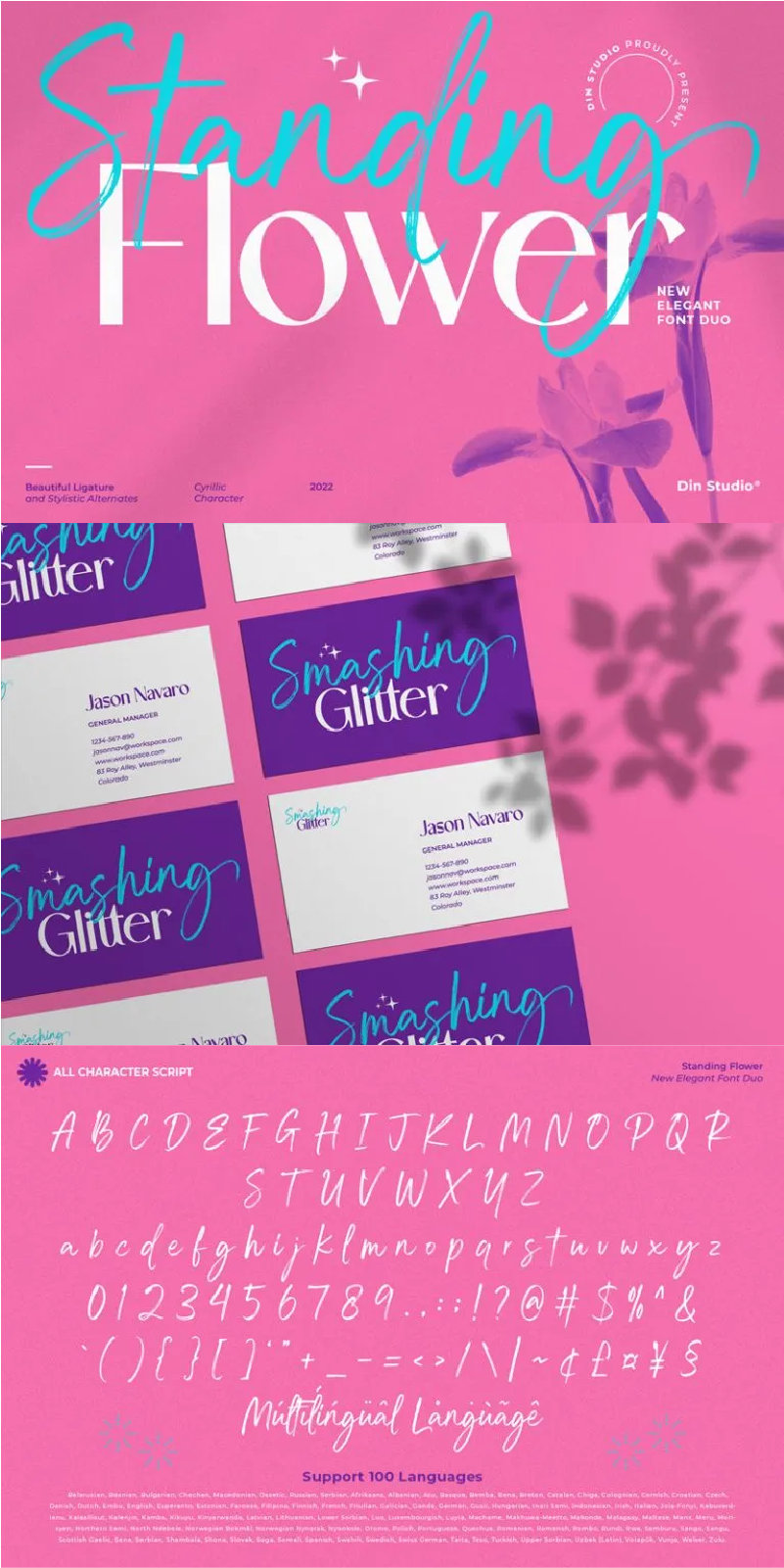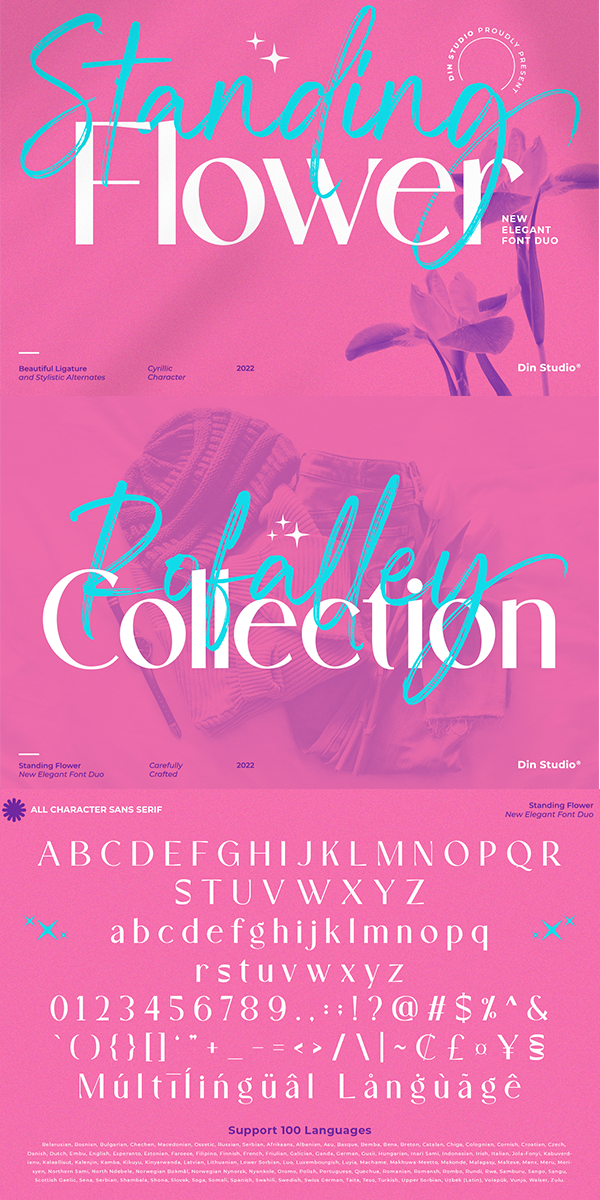
Standing Flower Font
About Standing Flower
A must have item for your design, here’s the Standing Flower. Standing Flower is a handcrafted script font combined with a refined sans serif font which suit your needs. Together, these complementary fonts portray elegant and modern vibes. The script font has natural feel to it, thanks to the handwritten letters not always connecting-much like when someone is written in cursive for a while and adds their unique spin to it. Besides that, the sans serif brings a flare of modern and sense of elegance. The organic feel of this font duo is enhanced by the amazing features provided. Easy to work with and pleasant to look at what else can you possibly need?
It works perfectly for for many design projects, such as poster, logo, book cover, branding, heading, printed product, merchandise, quotes, social media campaign, etc. Learn more about how to use it by seeing the font preview.